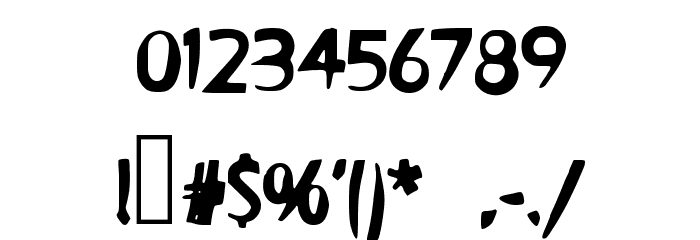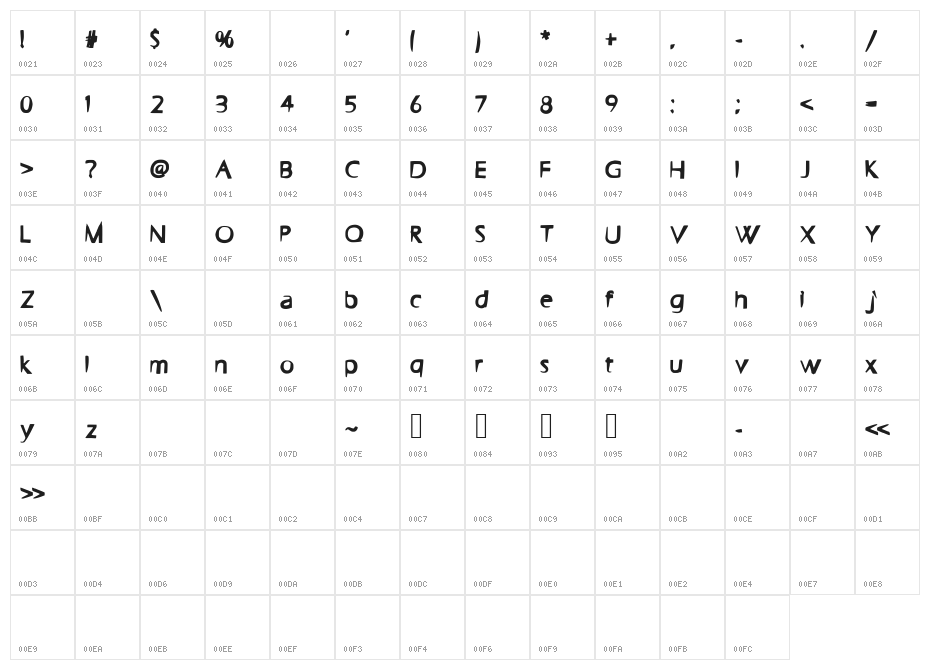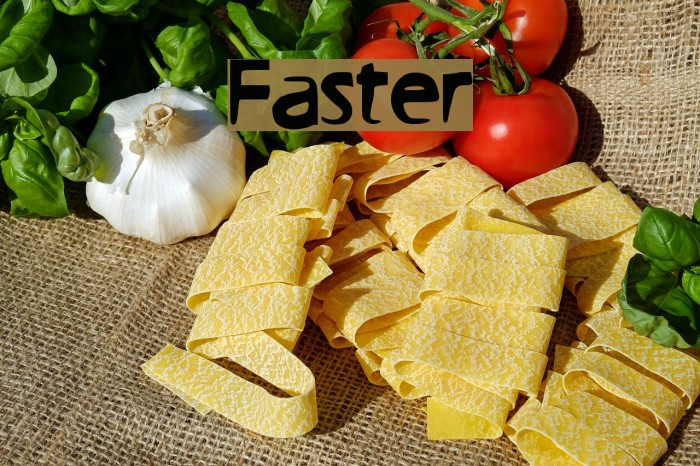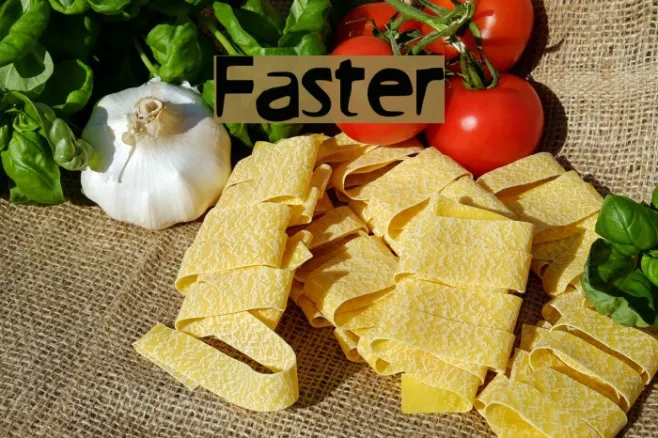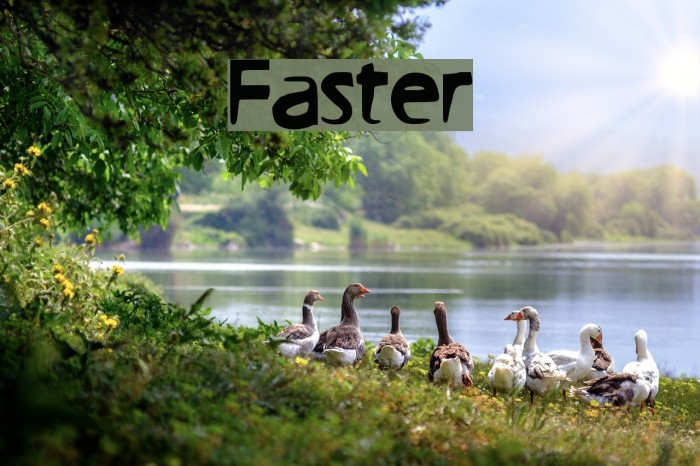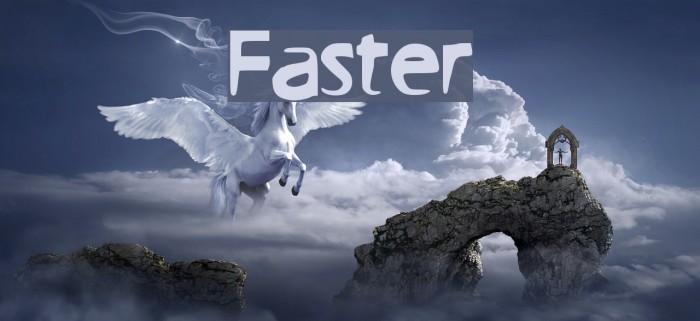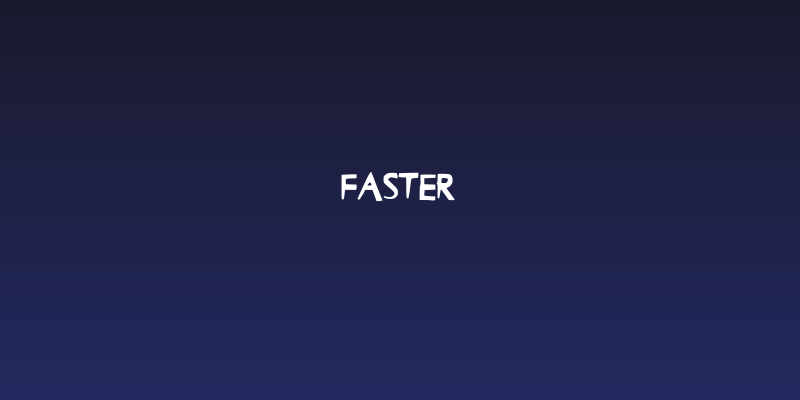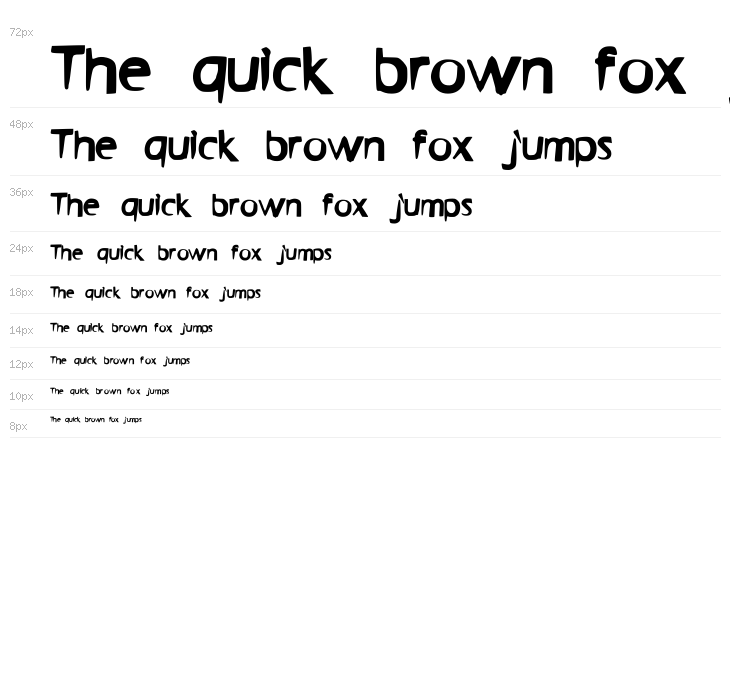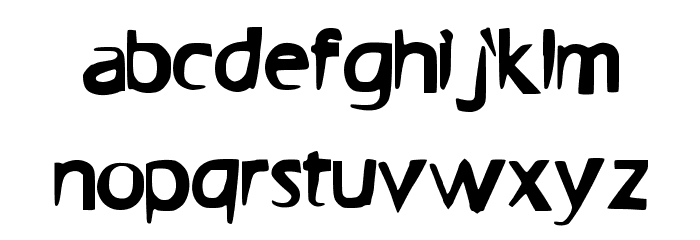
Faster Font
Faster Description
This font exhibits a playful and dynamic style with a slightly irregular and hand-drawn appearance. The characters have a bold presence with varying stroke thickness, giving them a lively and energetic feel. The uppercase letters are tall and slightly condensed, while the lowercase letters maintain a consistent height with rounded edges. The numbers and special characters follow the same playful design, making the font suitable for creative and informal projects. Its unique style captures attention and adds a whimsical touch to any design.
| Proposed Projects | Ideal for children's books, playful branding, posters, and creative invitations. |